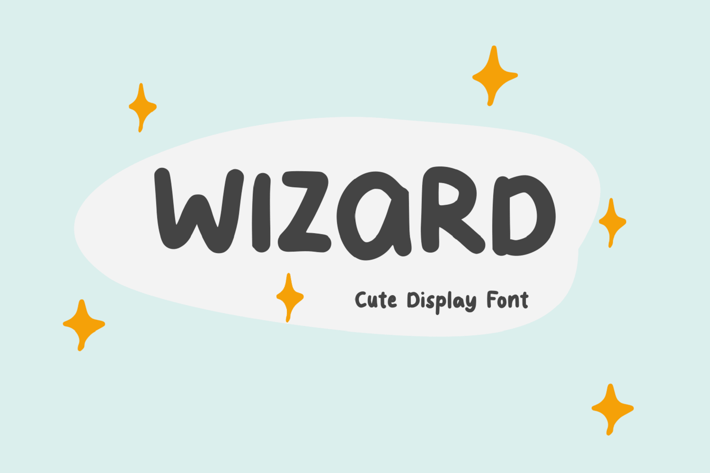
Wizard - Cute Display Font
Wizard - Cute Display Font, it’s perfect for logos, name card, magazine layouts, invitations, headers, or even large-scale artwork.